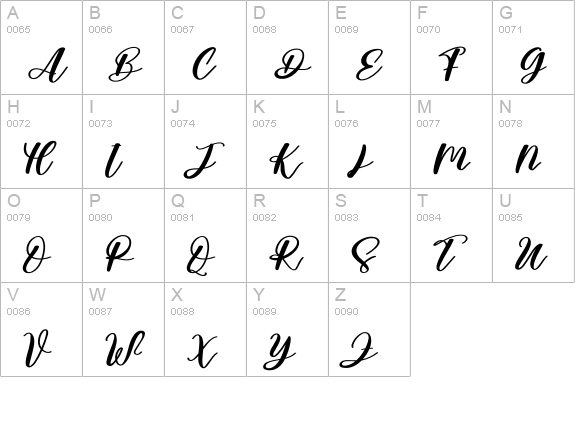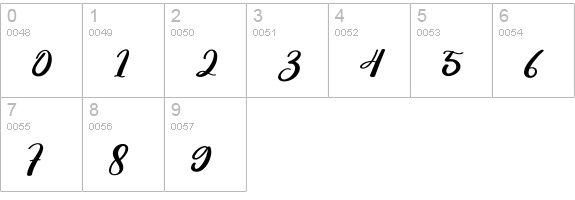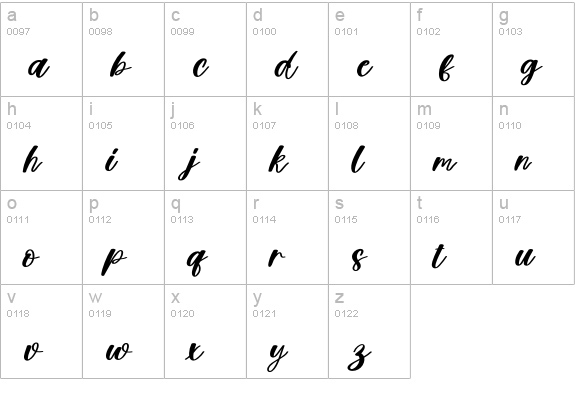
April Signature is a free for personal use font in the Script > Handwritten category, designed by scratchones. It has been downloaded 49 times and is available for Windows, Mac and Linux.
April Signature font is a stunning and elegant script typeface that exudes sophistication and charm. This font features delicate curves and flowing lines that perfectly capture the beauty of hand-lettering. Whether used for invitations, branding, or social media graphics, April Signature adds a touch of class and refinement to any design.